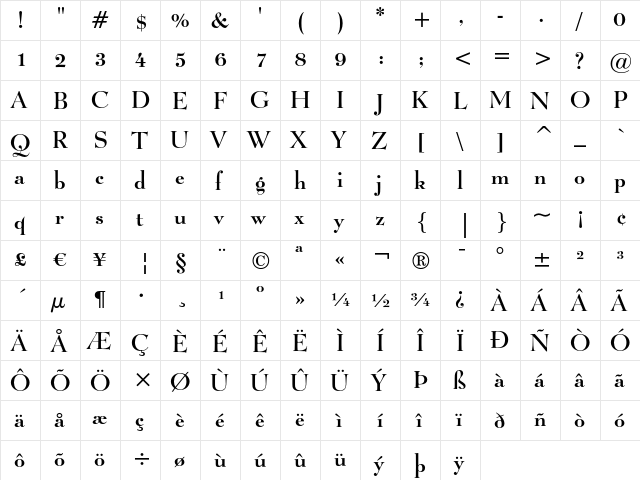
Lucian Regular
Design Context for Lucian Typeface
Lucian takes a measured approach to typography — its balanced proportions and neutral character make it a reliable workhorse for both digital and print work.